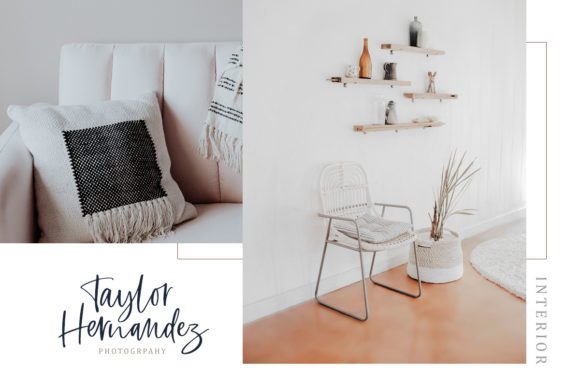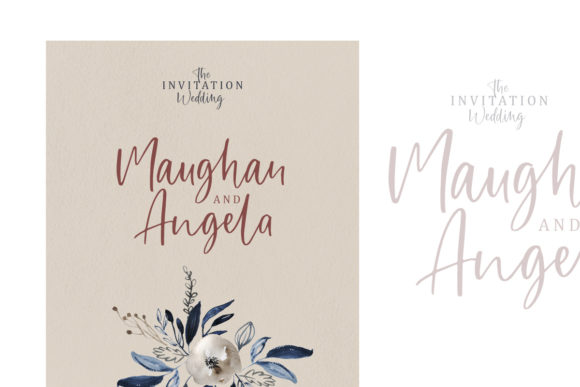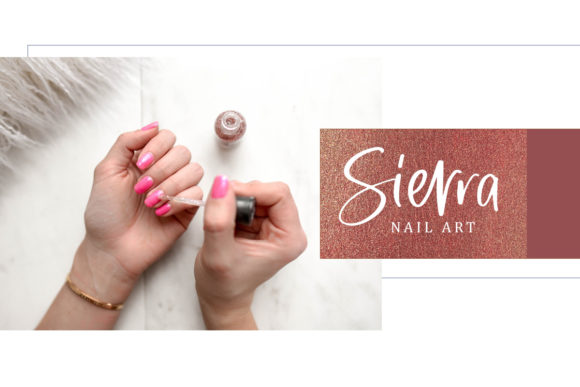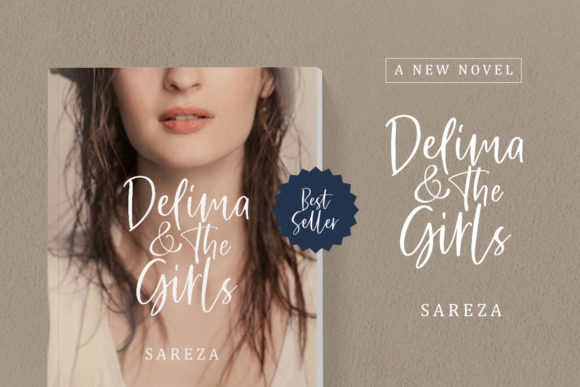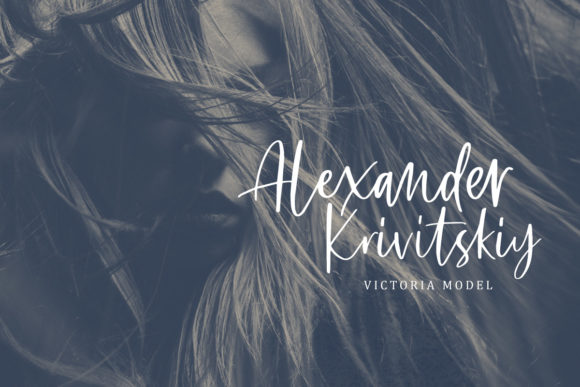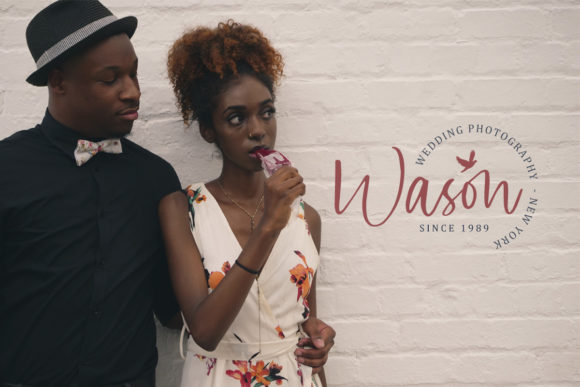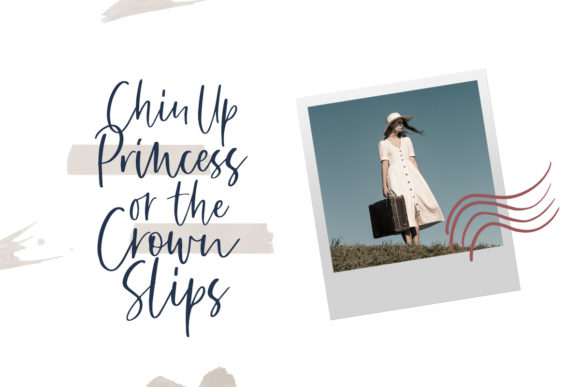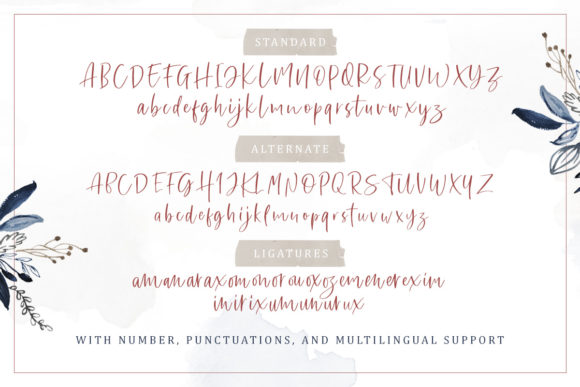
HomeScript FontsSharon Baker Font Script Fonts Sharon Baker Font FacebookXPinterestWhatsApp Sharon Baker Font Poster 2 Sharon Baker Font Poster 3 Sharon Baker Font Poster 4 Sharon Baker Font Poster 5 Sharon Baker Font Poster 6 Sharon Baker Font Poster 7 Sharon Baker Font Poster 8 Sharon Baker Font Poster 9 About Sharon Baker Font Sharon Baker is a light and casual handwritten font, full of authenticity. Get inspired by its unique feel! DOWNLOAD ON CREATIVE FABRICAThis font is sold and delivered by Creative Fabrica. Font Canyon may earn a commission if you buy through this link. People also explored Grancino Font Milky Unicorn Font PN Sleigh Serif Holly Font Overthinking Font Verfallo Font Exit Strategy Baiqh Font Happy 4th of July Font Bestfriend Font 303 0 TagsSharon Baker Font Previous articleEiffel in Love Duo FontNext articleThinkshare Font LEAVE A REPLY Cancel reply Comment: Please enter your comment! Name:* Please enter your name here Email:* You have entered an incorrect email address! Please enter your email address here Website: Save my name, email, and website in this browser for the next time I comment. Personal Use Free Heartburn Personal Use Free Read more about this font Hommy You Personal Use Free Read more about this font Hashira Mt Personal Use Free Read more about this font Aline Personal Use Free Read more about this font BLOG Best Fonts for YouTube Videos: Make Your Thumbnails Stand Out Best Fonts for YouTube Videos: Make Your Thumbnails Stand Out Choosing the right font can make a massive difference in how your YouTube videos perform.... Free vs Paid Fonts: Why Investing in Premium Fonts Is Worth It Where to Buy American Fonts Online in 2024 Fonts That Capture the Spirit of New York City